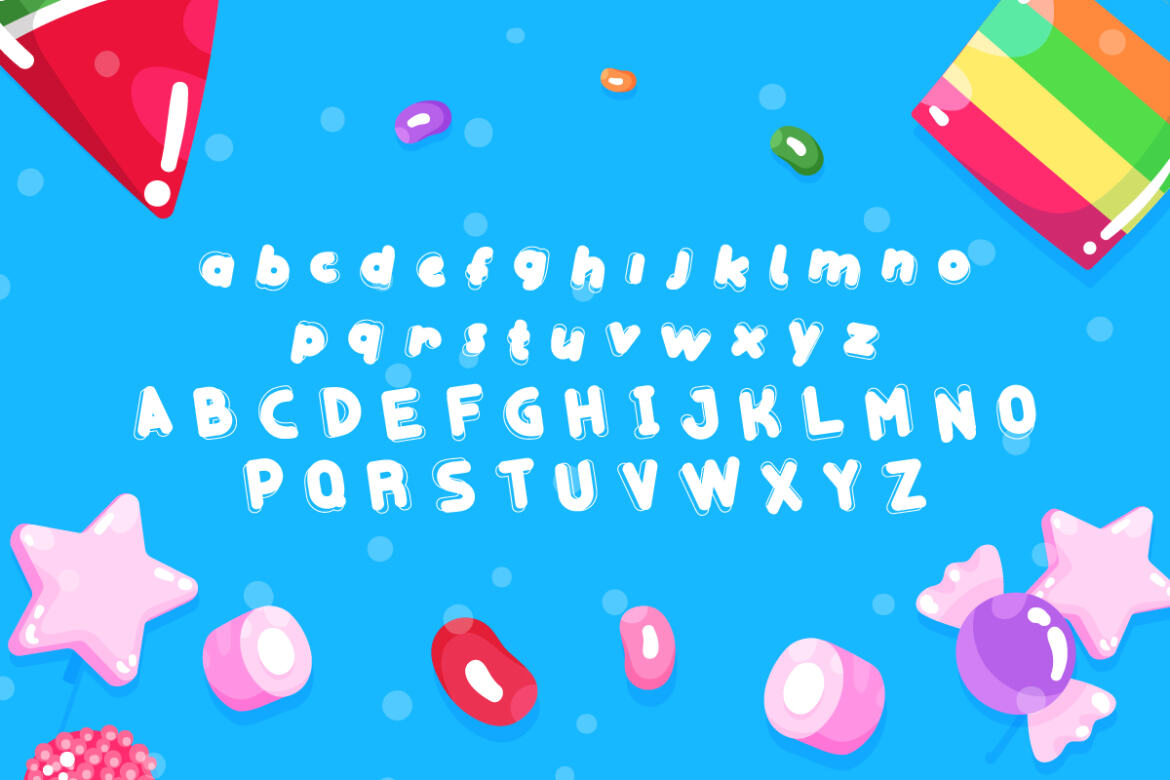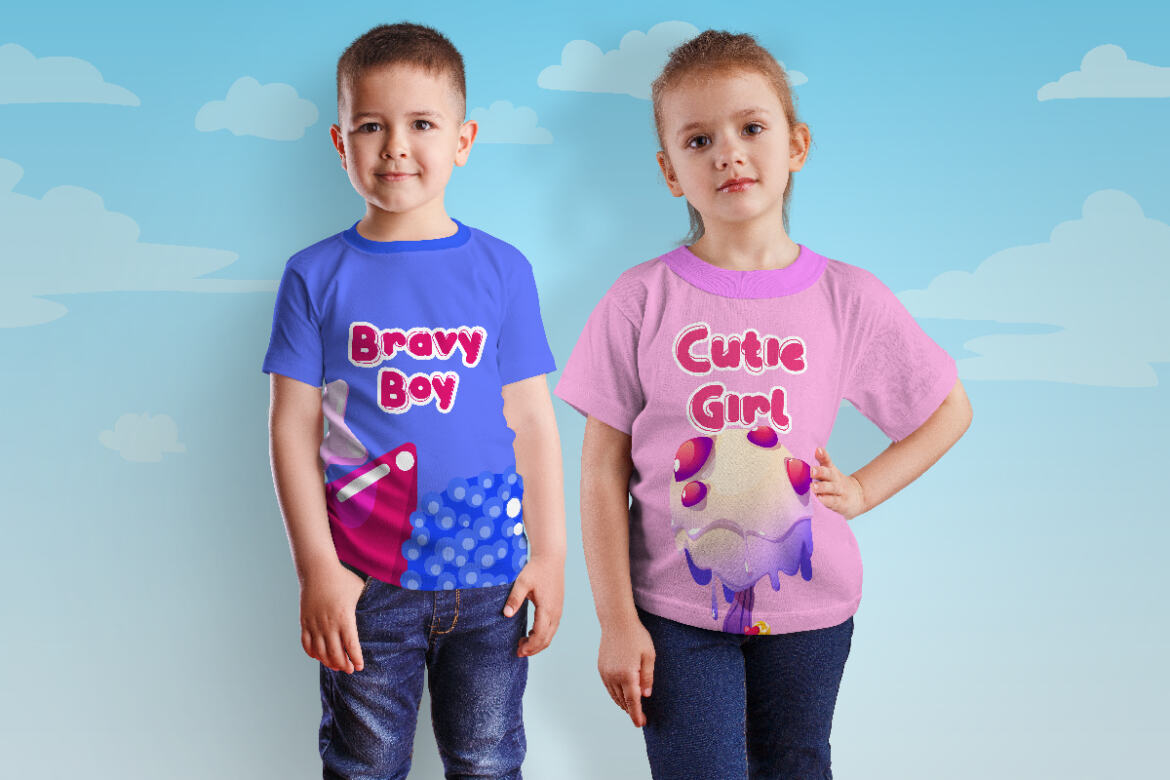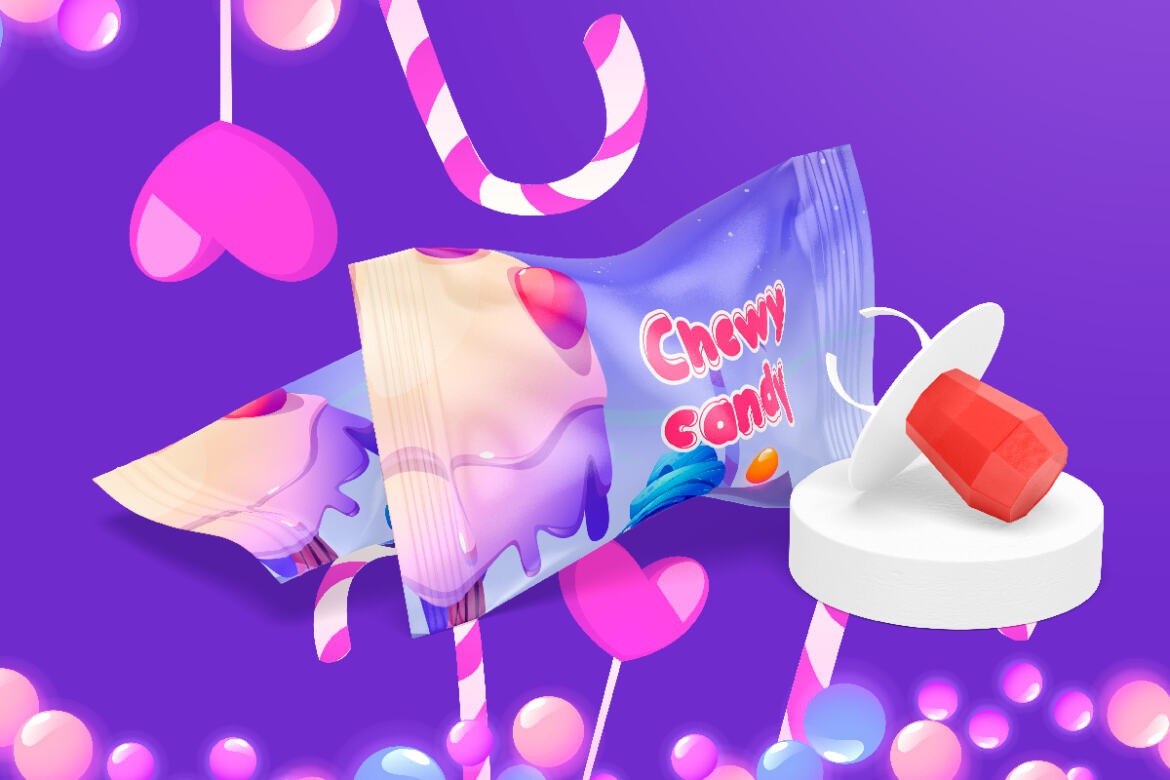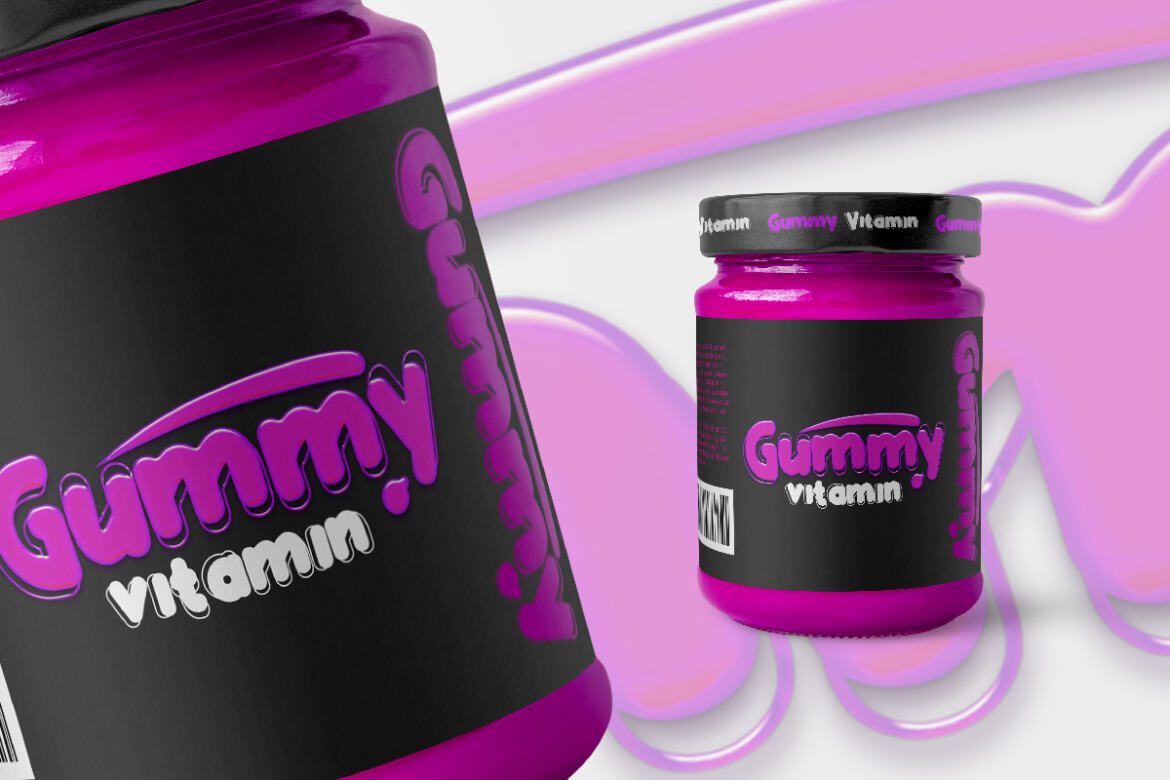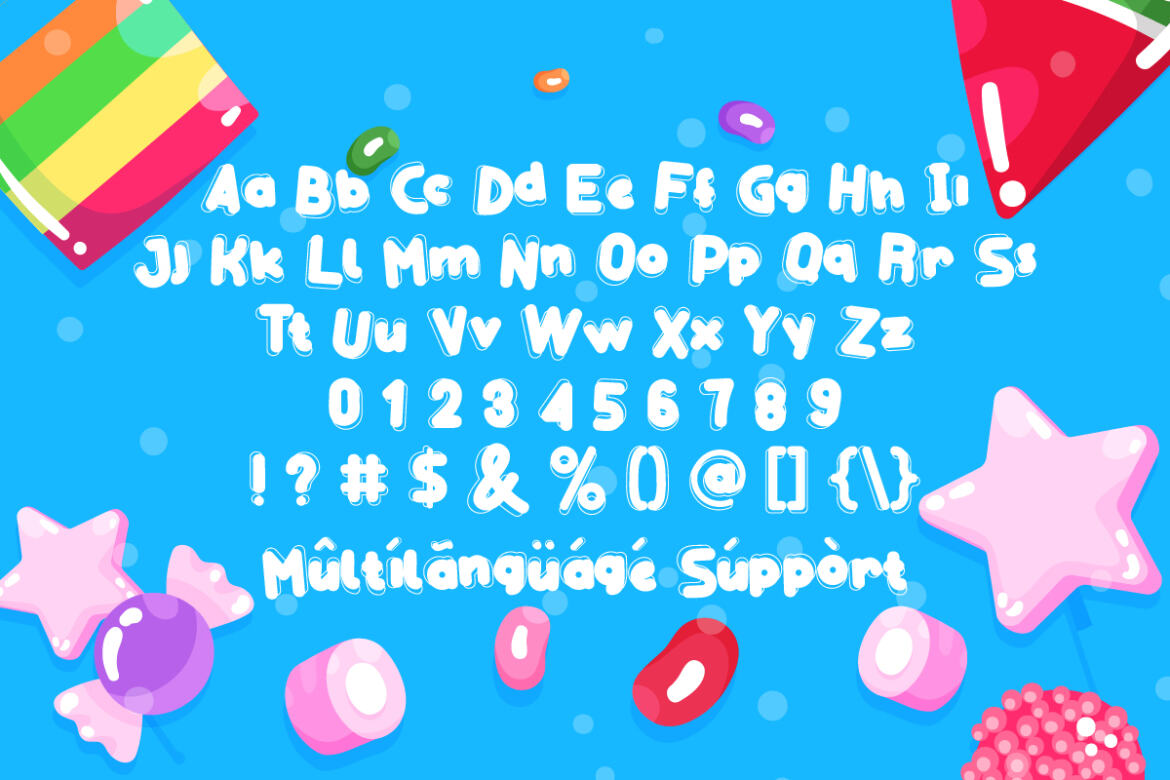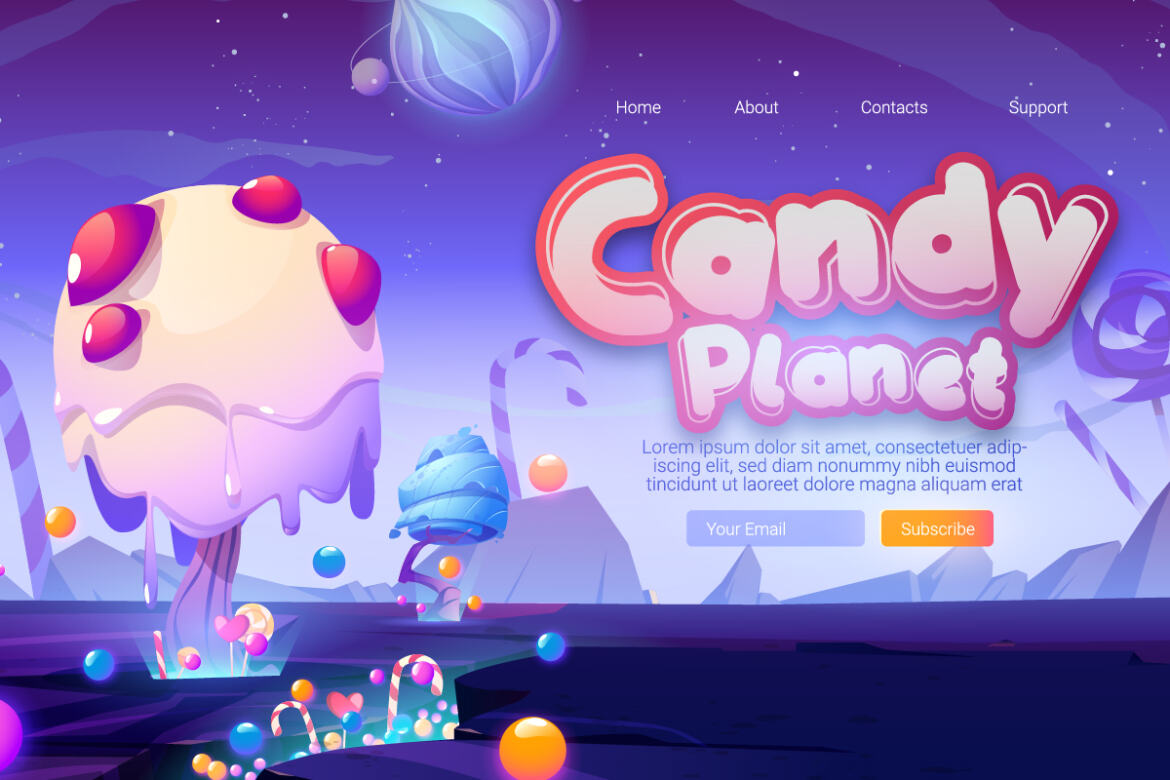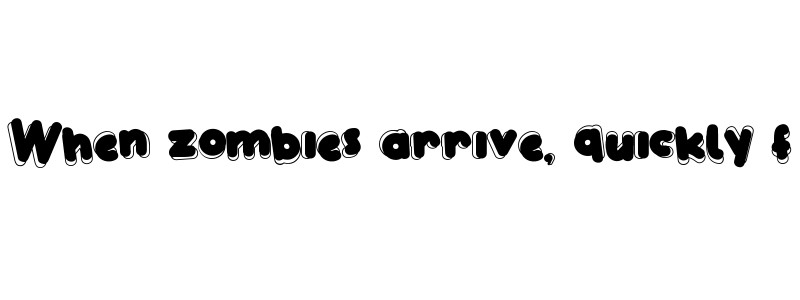
Gummy Candy FREE Font
Gummy Candy Font  is a display font by CalligraphyFonts.net with cartoon style. The font is inspired from the cartoon/comic feel. It will be great for logo brandings, headlines, products packaging, signange, stationery etc. The font will suit many industries including clothing, food/drink, kids, school, etc Gummy Candy Font is cute and unique character features a full set of lowercase and uppercase letters, numbers, symbols so you can stand out and use them for book covers, toy cards, webpages and more!!! Here’s what you’ll get on the package :